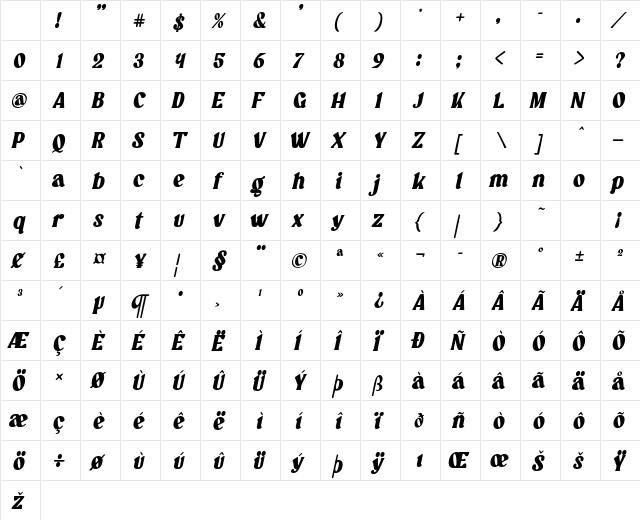
Complete Nostalgic Remain Italic glyph index. Displaying only characters natively supported by Nostalgic Remain Italic font.
Nostalgic Remain is a composed and adaptable typeface that performs quietly and consistently across a wide range of design contexts. The slanted form adds forward momentum and visual energy.